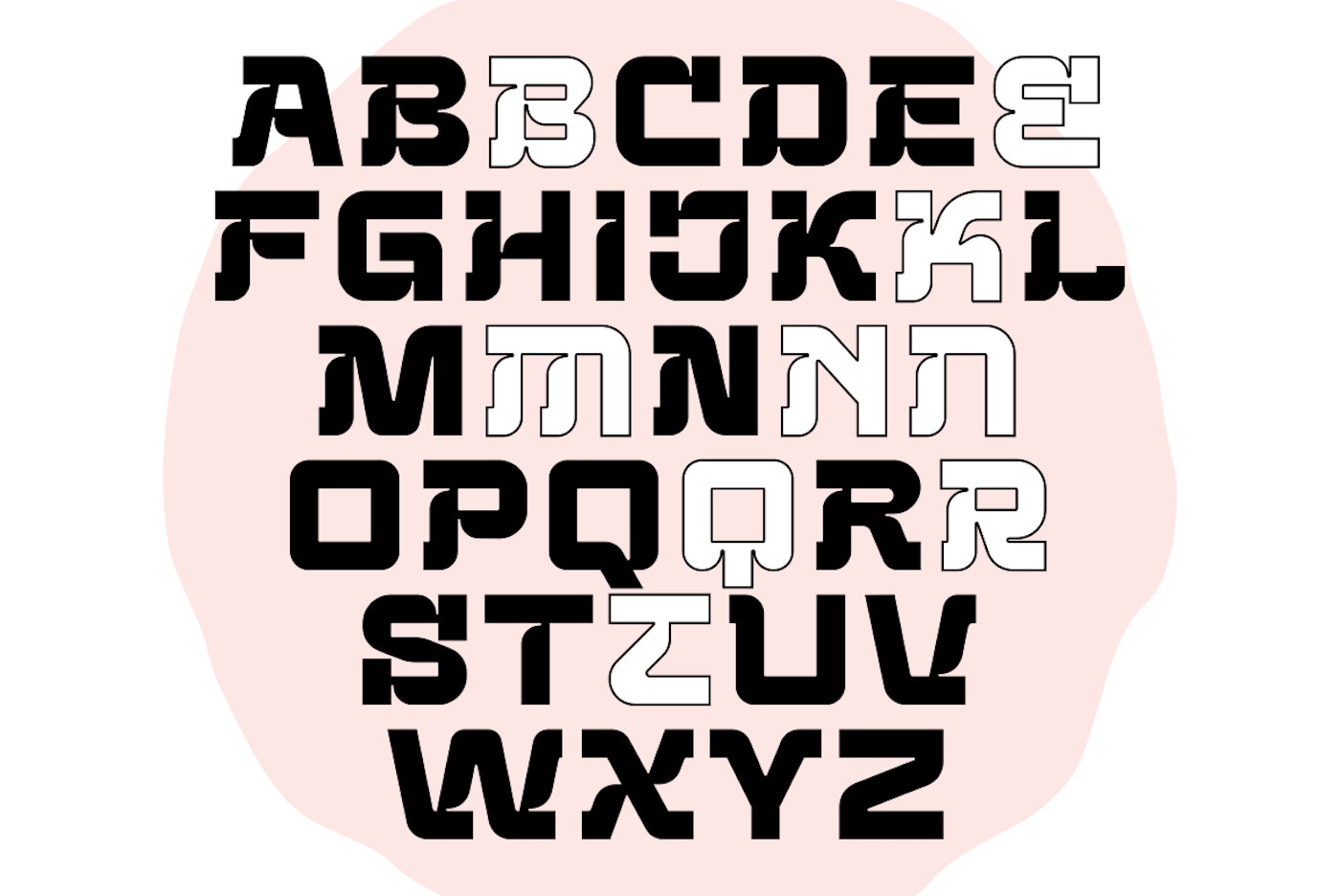
Kuga is a bold and friendly sans serif semi-futuristic typeface from Bagerich Type Foundry & Eotype Foundry. Kuga has a unique style with stylistic alternates, ligatures and supports multilingual languages.
Create unique & beautiful logotypes, use it as an elegant solution for your next magazine layout, or choose Kuga for any graphics that require a sleek look with an elegant flair.